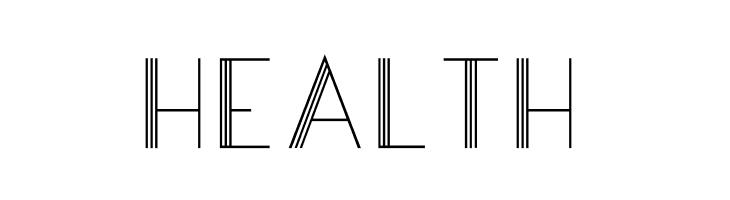
A geometric Art Deco font with clean lines and elegant curves.
A classic, elegant script font with vintage Hollywood flair.
A decorative font with letters set in gem-like shapes, offering a luxurious and elegant appearance.
A sharp, elongated font with high contrast and Art Deco influences.
A bold, decorative font with a 3D marquee effect and intricate line patterns.
A bold, 3D filled marquee font with an italic slant, ideal for decorative and eye-catching designs.
A bold, decorative font with star-like embellishments for a dazzling effect.
A decorative font with diamond motifs, offering a luxurious and elegant style.
An elegant italic font with high contrast and decorative serifs, exuding sophistication.
A bold, geometric font with art deco influences and outlined characters.